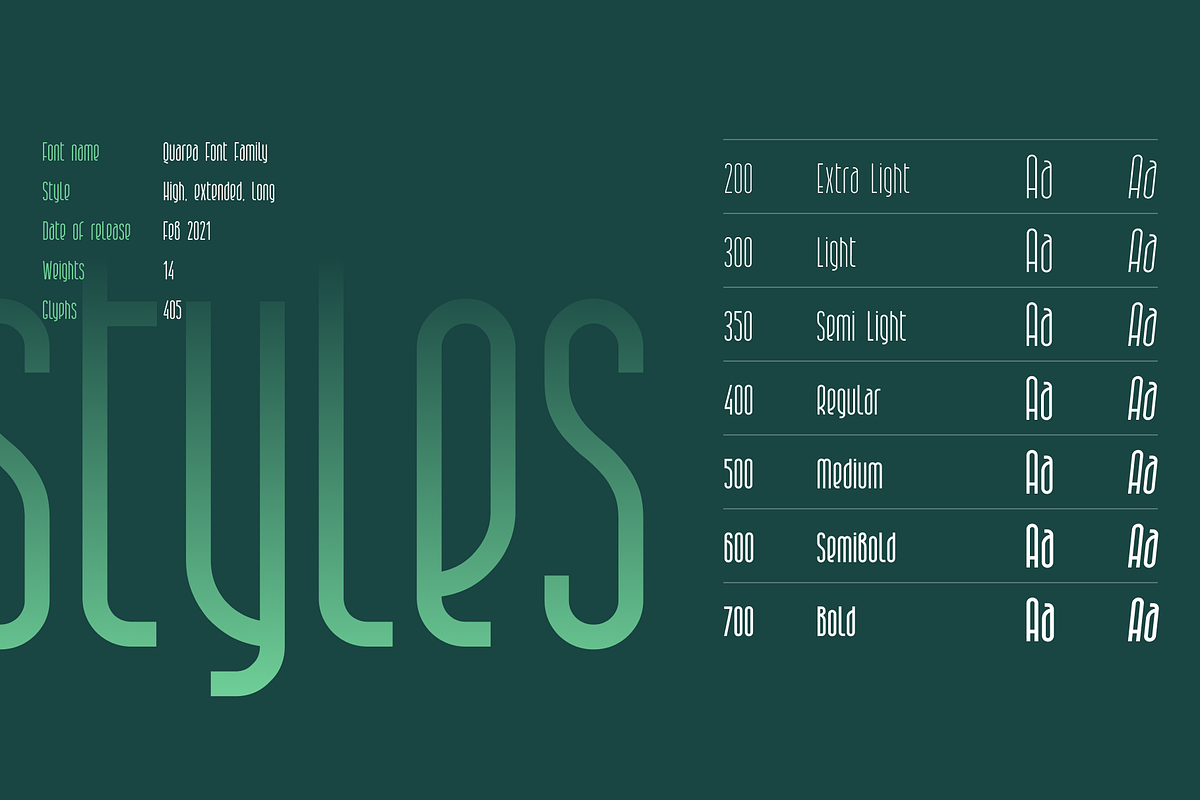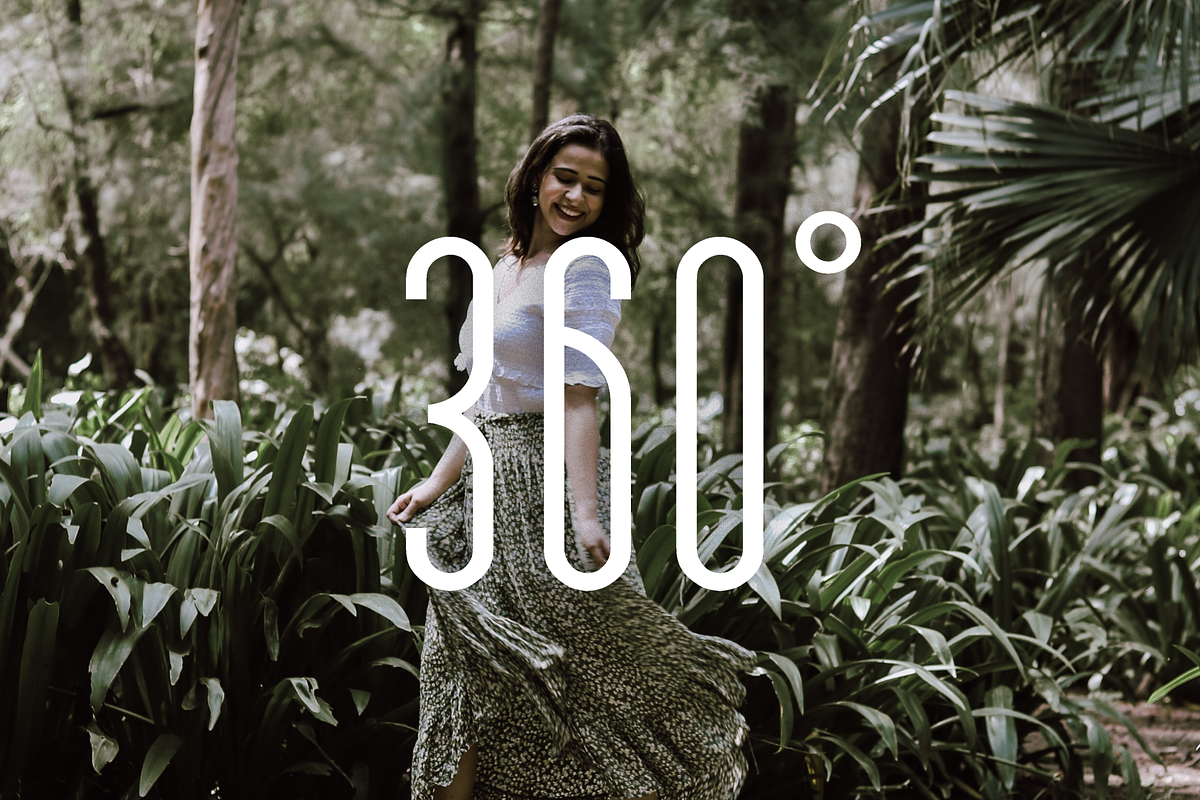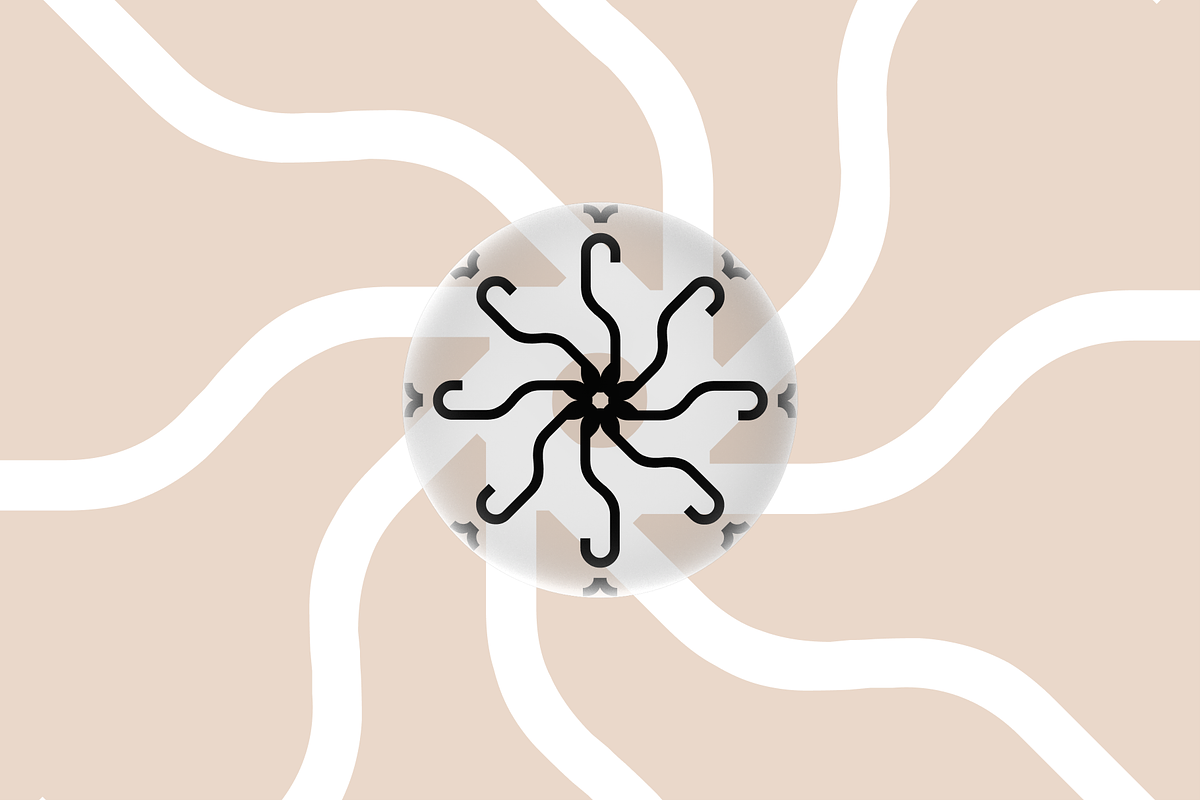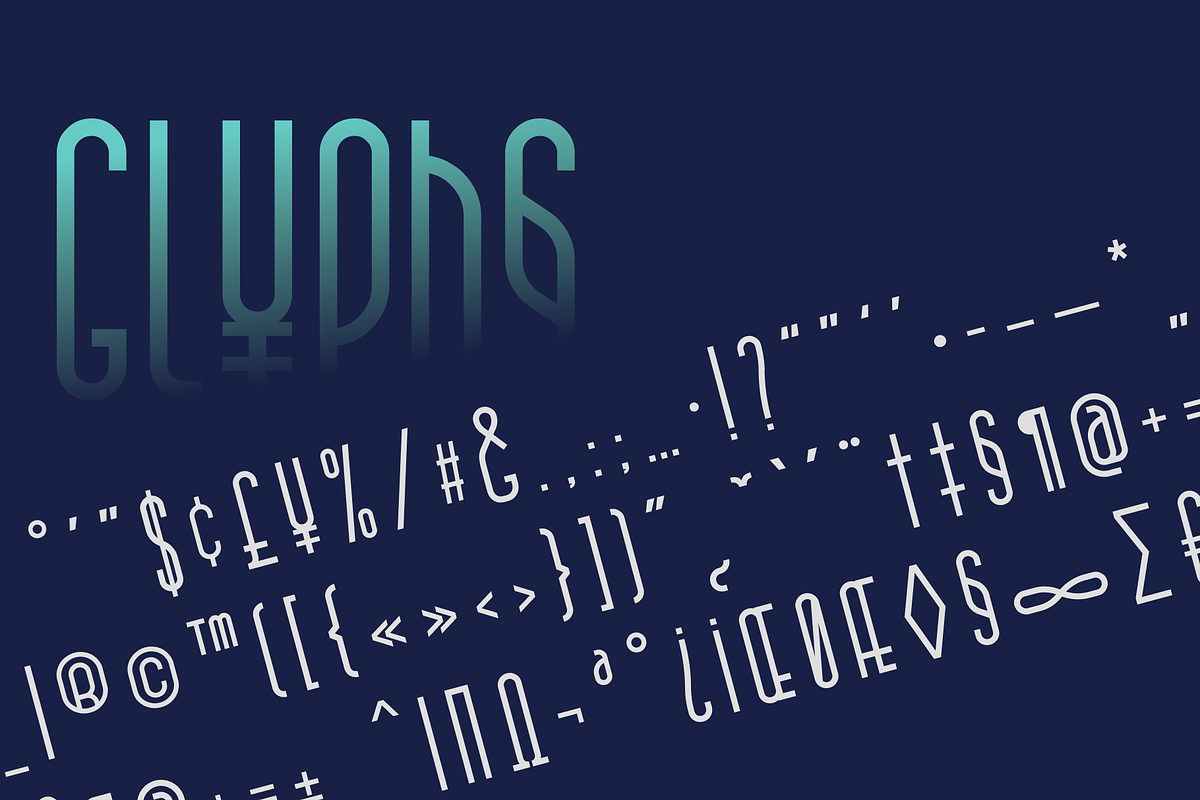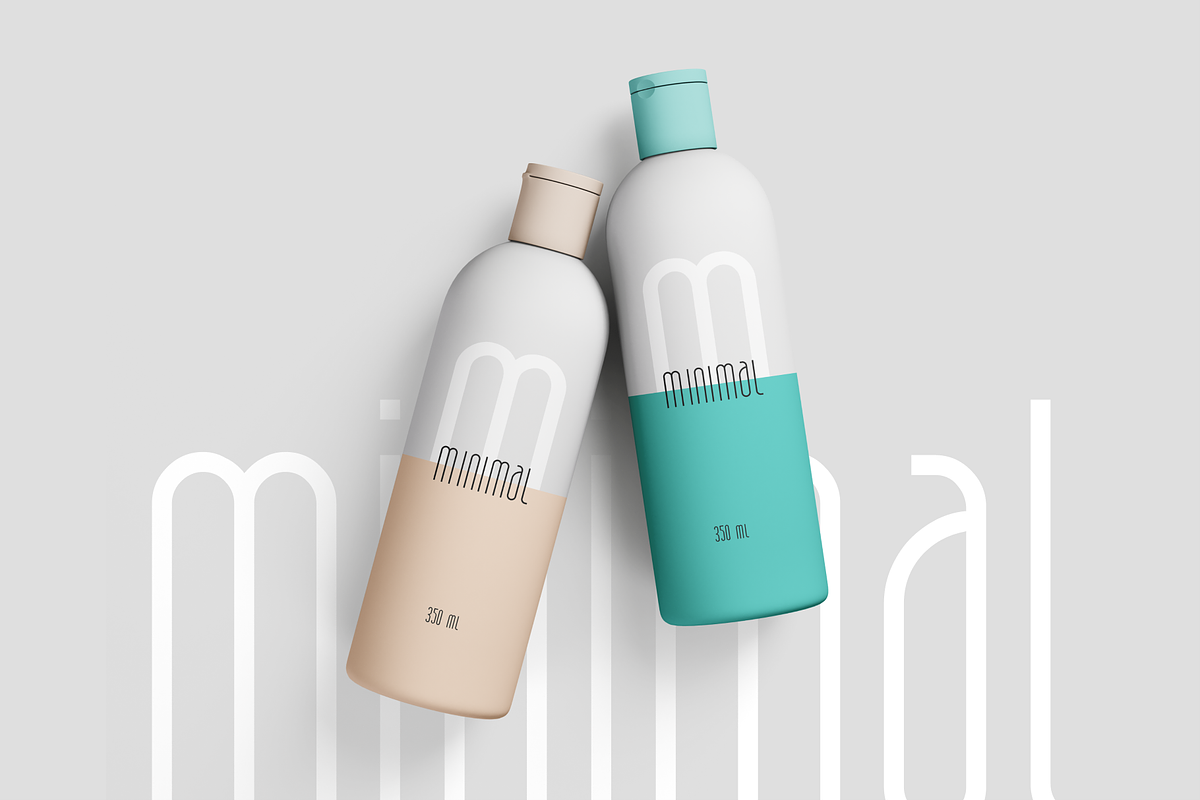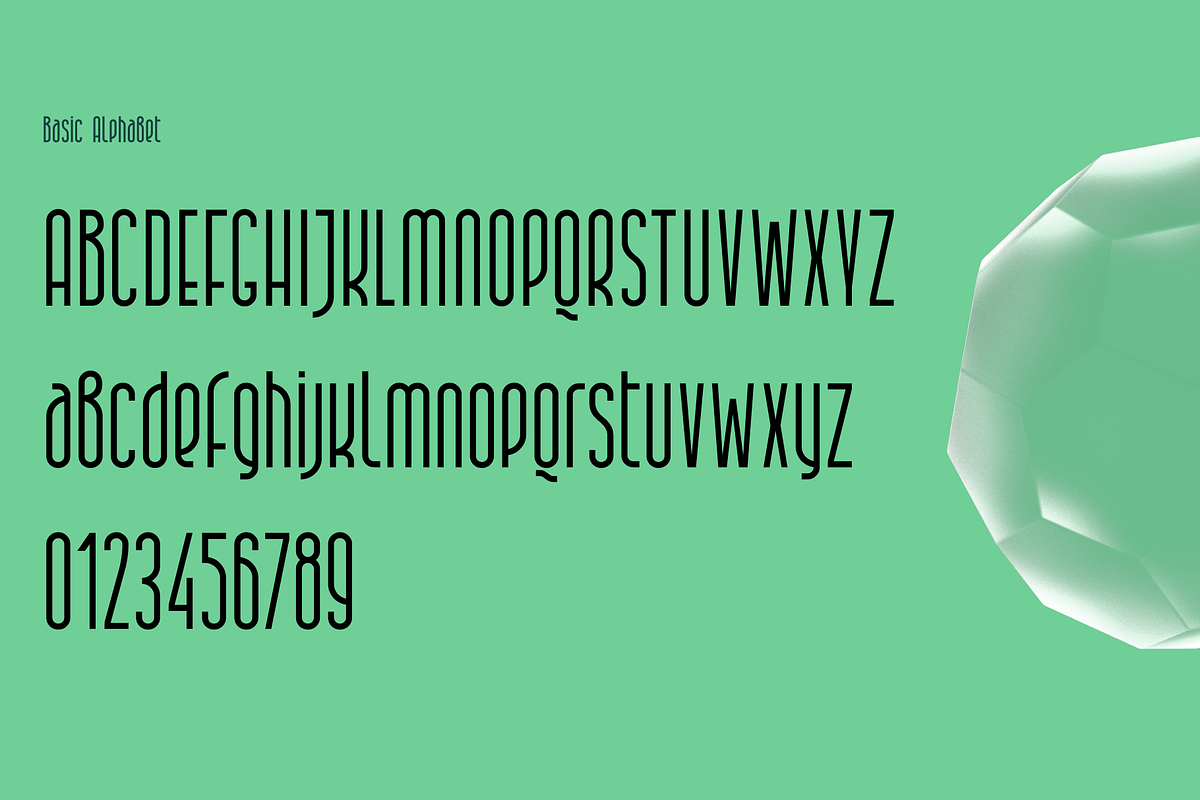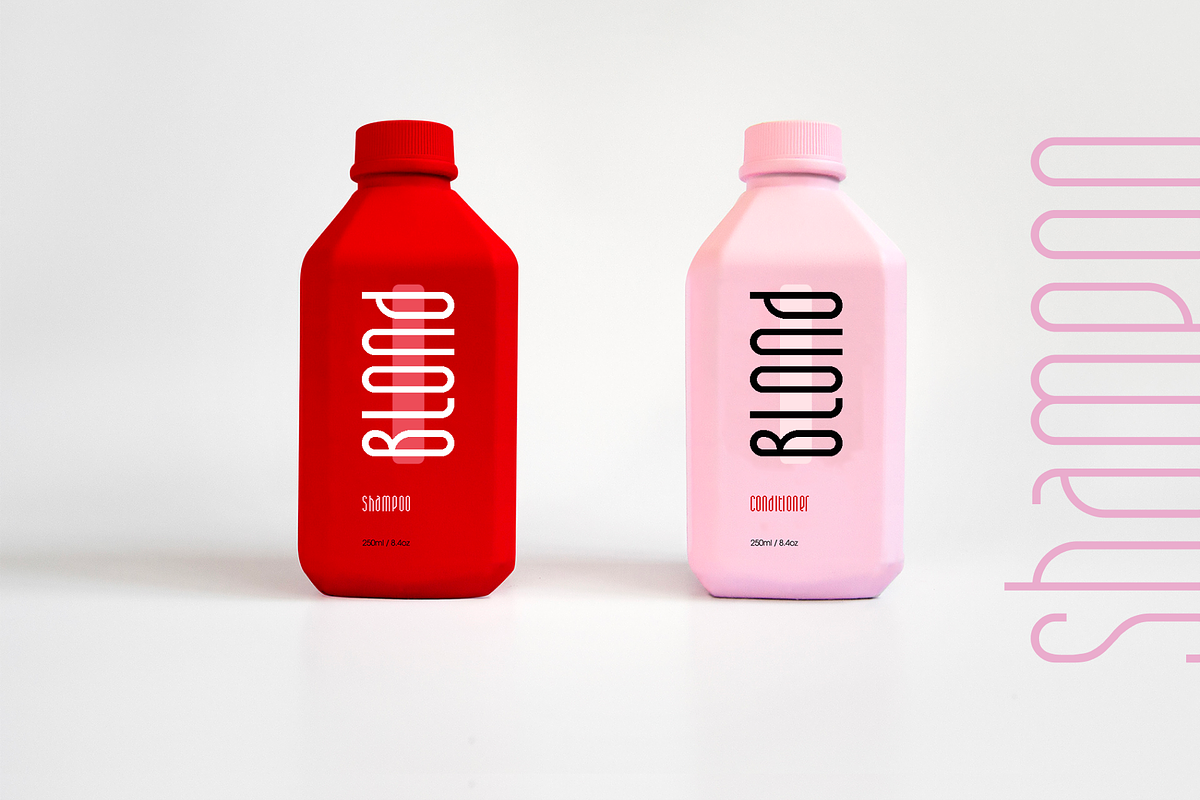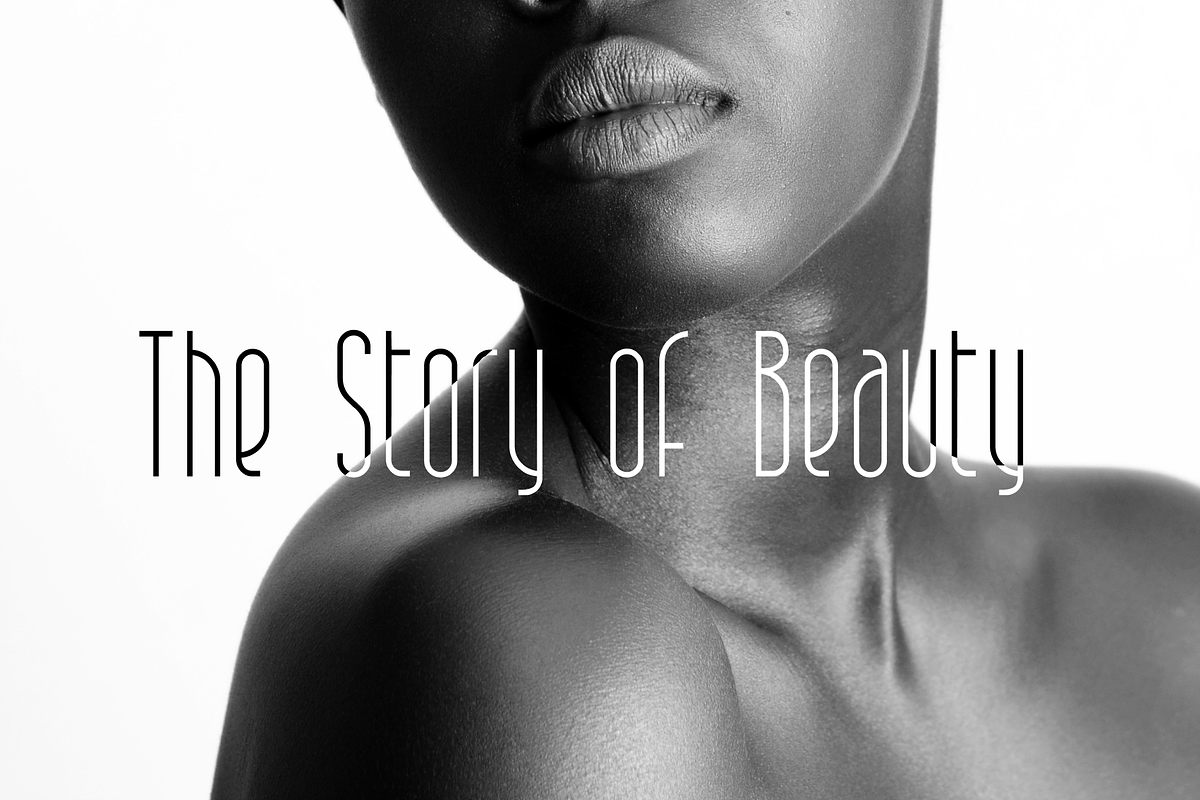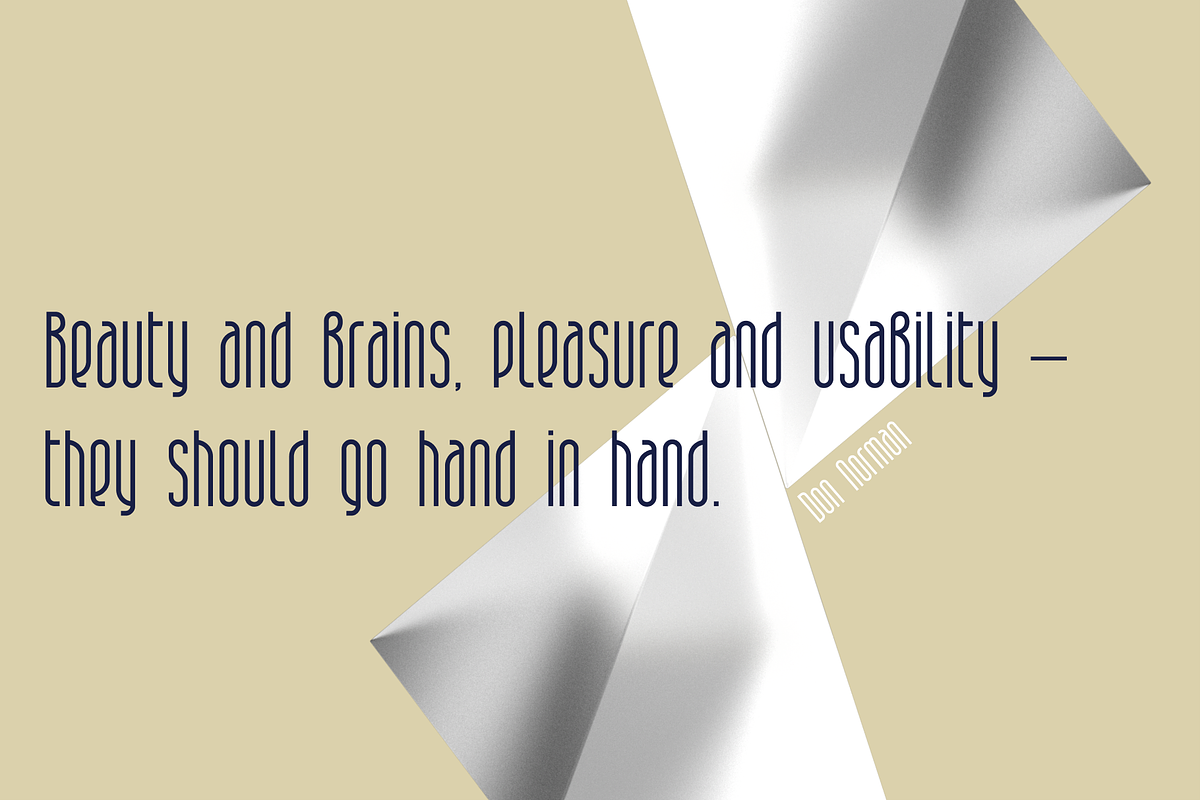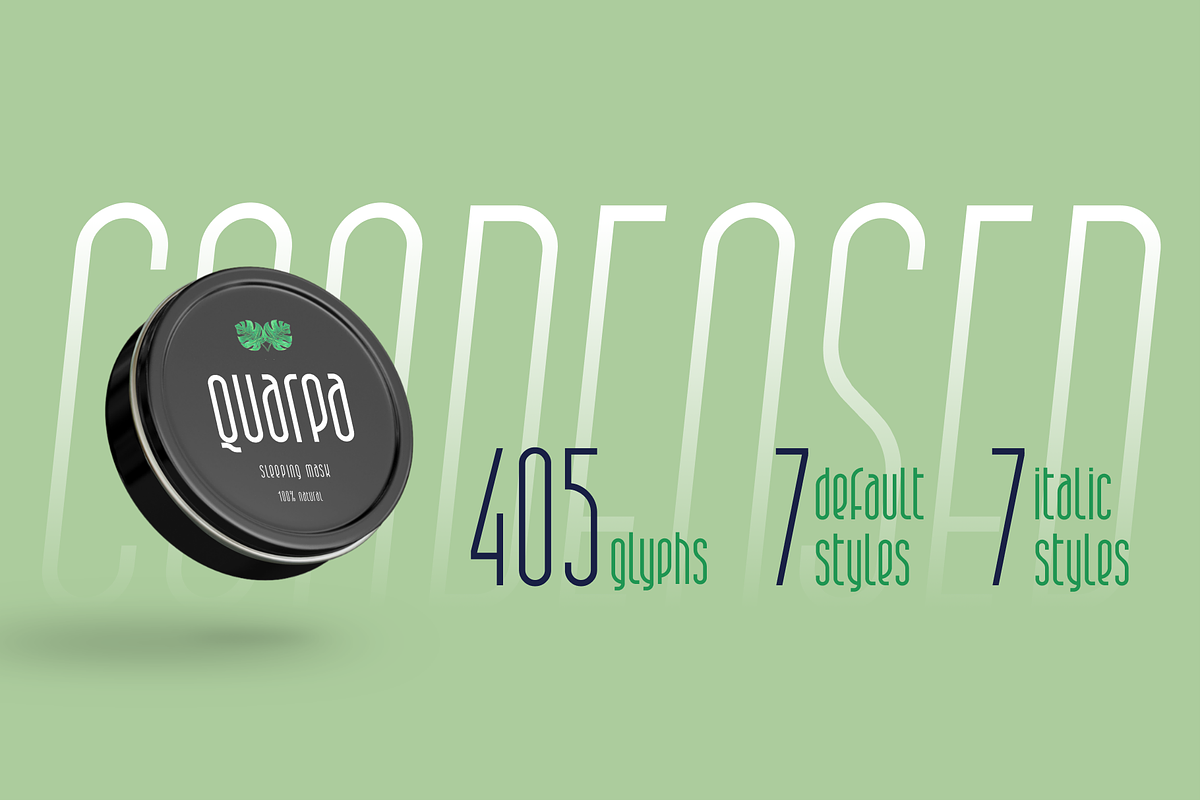
Quarpa Font Family
Name: Quarpa Styles: 14 Glyphs: 405 Year: 2021
This lofty font features a compact structure as well as a unique combination of rounded corners and square contours. The collection includes seven default and 7 Italic styles: Extra Light, Light, and Semi Light that will ensure elegance; Regular, Medium, Semibold and Bold suitable for a solid design. Each of them also has Italic variation.
It’s an ideal option for outstanding corporate images, logos, promos, or video presentations. Quarpa has proper kerning, multi-lingual support, and ligatures.